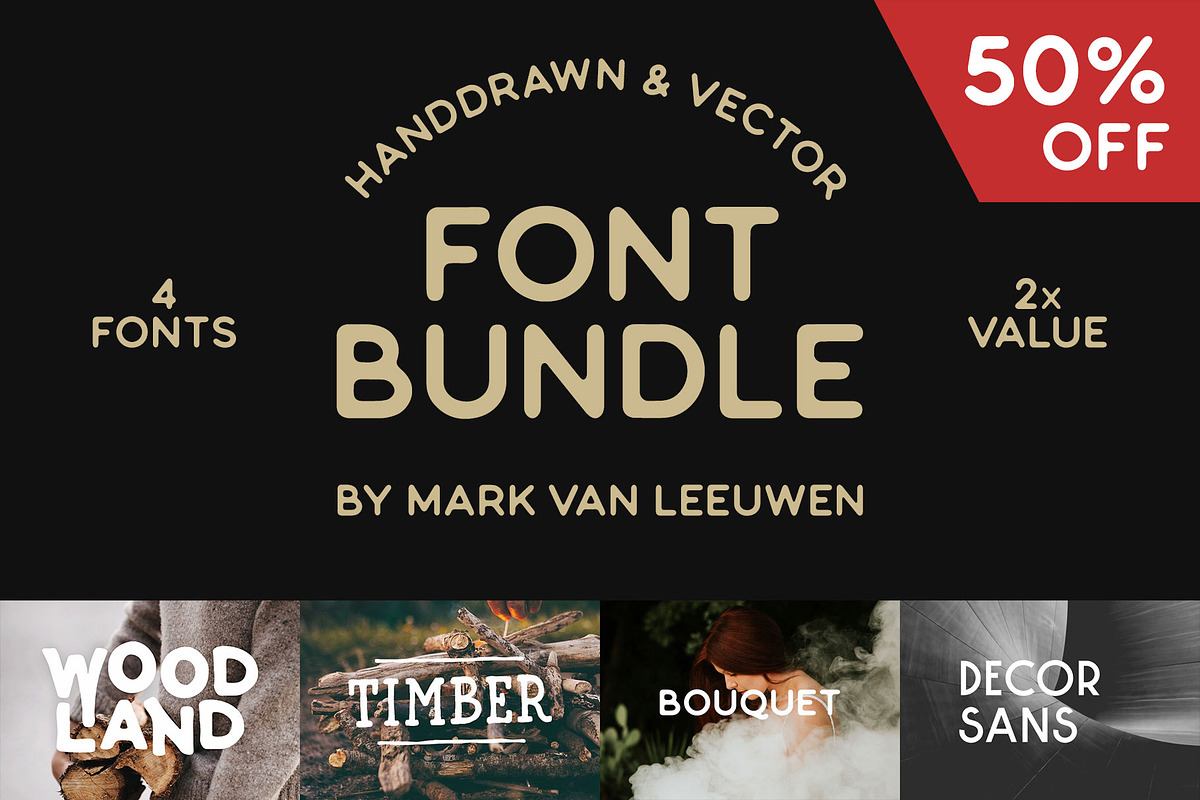
Versatile, value-packed, and ready for any creative project, Font Bundle Free Download offers a curated collection of high-quality typefaces in a variety of styles—from elegant scripts and bold displays to clean sans-serifs and vintage serifs. It’s the perfect solution for designers, marketers, and creatives who want a diverse font library at their fingertips.
Each font in the bundle is crafted with attention to detail, ensuring professional results across branding, social media, packaging, invitations, and more. Whether you're working on personal projects or building a cohesive visual identity, this bundle gives you creative flexibility and stylistic range.